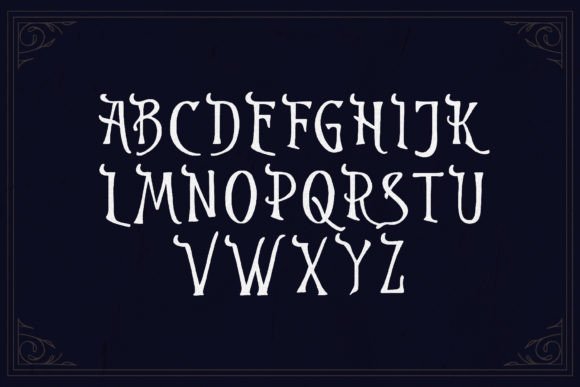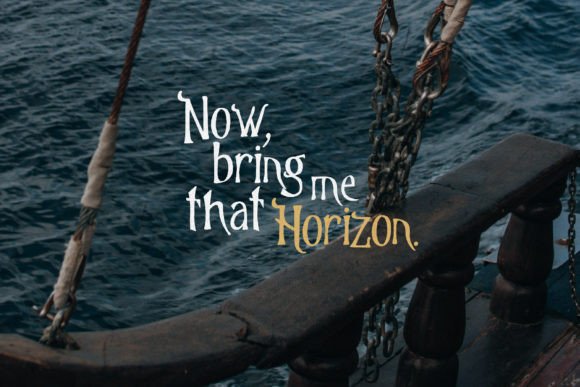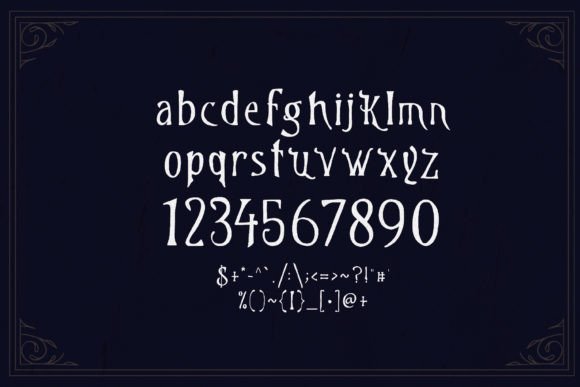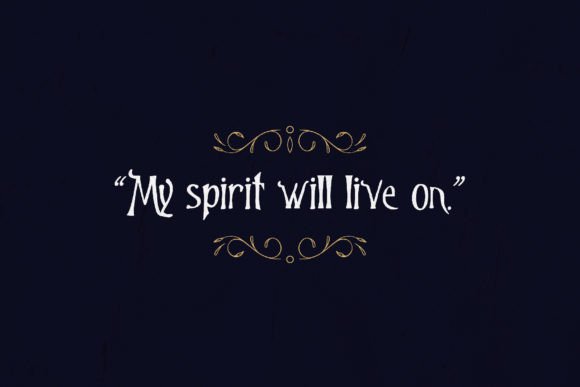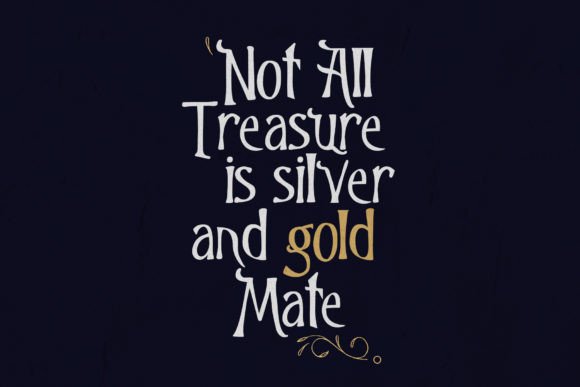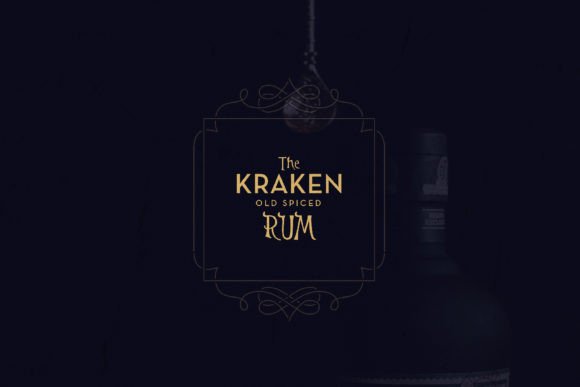
Introduction to Freebooter Font
Have you ever stared at a blank canvas, feeling like the perfect design is just out of reach? You know the feeling – the one where every font looks too modern, too clean, or just plain boring? That’s where the Freebooter Font comes in, a swashbuckling typeface from the 1500s that’s sure to add a touch of authenticity to your creative project.
Imagine being able to transport your audience to a bygone era, where pirate ships sailed the seven seas and typography was an art form in its own right. With the Freebooter Font, you can do just that, thanks to its unique imperfections that give it a distinctly human touch. Whether you’re designing a logo, creating a social media campaign, or working on a marketing project, this font is sure to be a valuable addition to your design resource.
Key Features of Freebooter Font
- Unique, hand-drawn style with a transparent background, ideal for adding a touch of elegance to your designs.
- Features a range of characters, including uppercase and lowercase letters, numbers, and punctuation marks.
- Designed to be versatile, making it perfect for use in various design projects, from logos to typography.
Honest Review: Freebooter Font
I recently had the chance to work with the Freebooter Font, and I must say it’s been a great addition to my design resource library. With its high quality and free download, it’s become an instant favorite for my creative projects.
- ✨ Beautifully crafted lettering with intricate details, making it perfect for titles and headings.
- ✨ The font is highly customizable, allowing me to adjust the spacing, size, and color to fit my design needs.
- ✨ The transparent background option is a huge plus, giving me the flexibility to place the text over any background image or color.
- ⚠️ The font may not be suitable for body text due to its ornate design, which can make it difficult to read.
- ⚠️ Some users may find the font too decorative, which can detract from the overall message of their design.
Overall, I’m very impressed with the Freebooter Font. It’s a fantastic design resource that adds a touch of elegance and sophistication to my creative projects. With a little creativity, the limitations can be overcome, and the font can become a true showstopper.
The Freebooter Font is perfect for any creative project that requires a unique and stylish font. Some common use cases include:
- Logos
- Posters